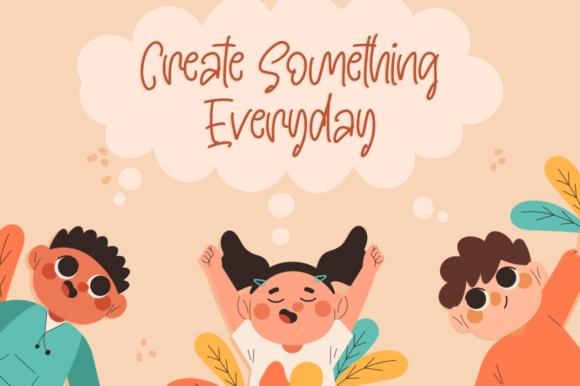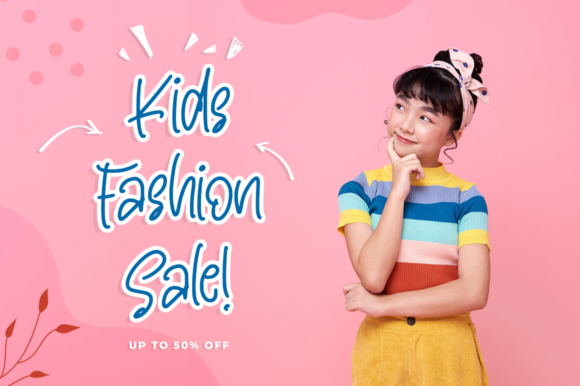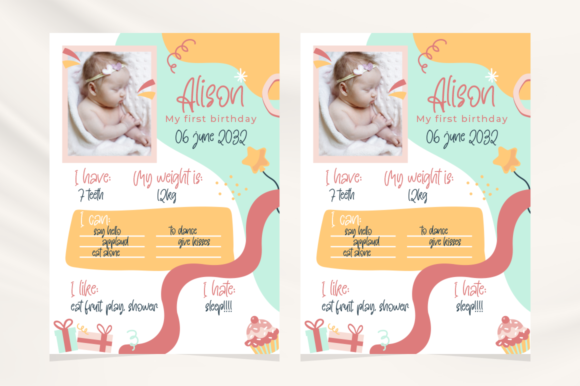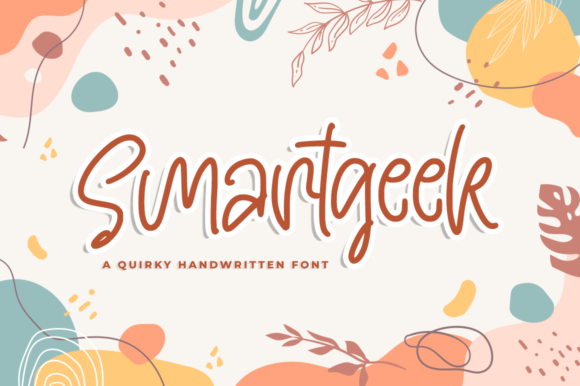
Introduction to Smartgeek Font
Smartgeek is a cool and asymmetrical handwritten font.
It will turn any creative idea into a true standout Get inspired by its childlike playfulness, and use it to brighten up any kids and school project.
Key Features of Smartgeek Font
Why Choose Smartgeek Font?